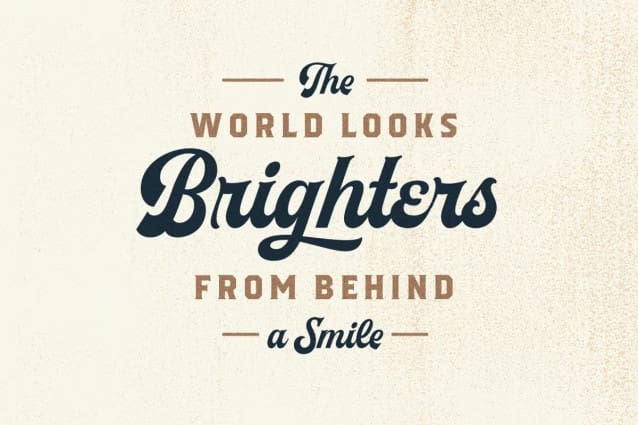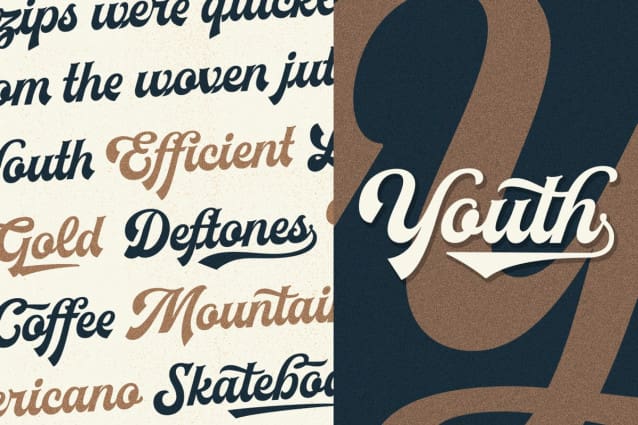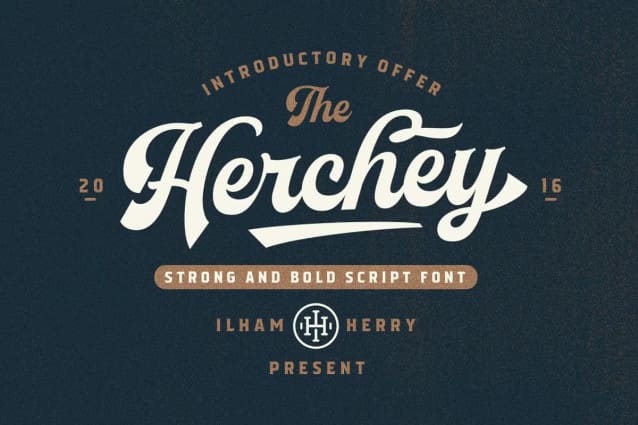
Herchey Font Duo
Herchey Font Duo – High quality script font with swashes inspired by modern vintage design and baseball logo. Plus OpenType features with Stylistic Alternates, Swashes, Ligatures, Stylistic set, Terminal Form and Ornament that allows you to mix and match pairs of letters to fit your design. This font good for vintage design, t-shirt, logo, labels,badges, posters and etc.